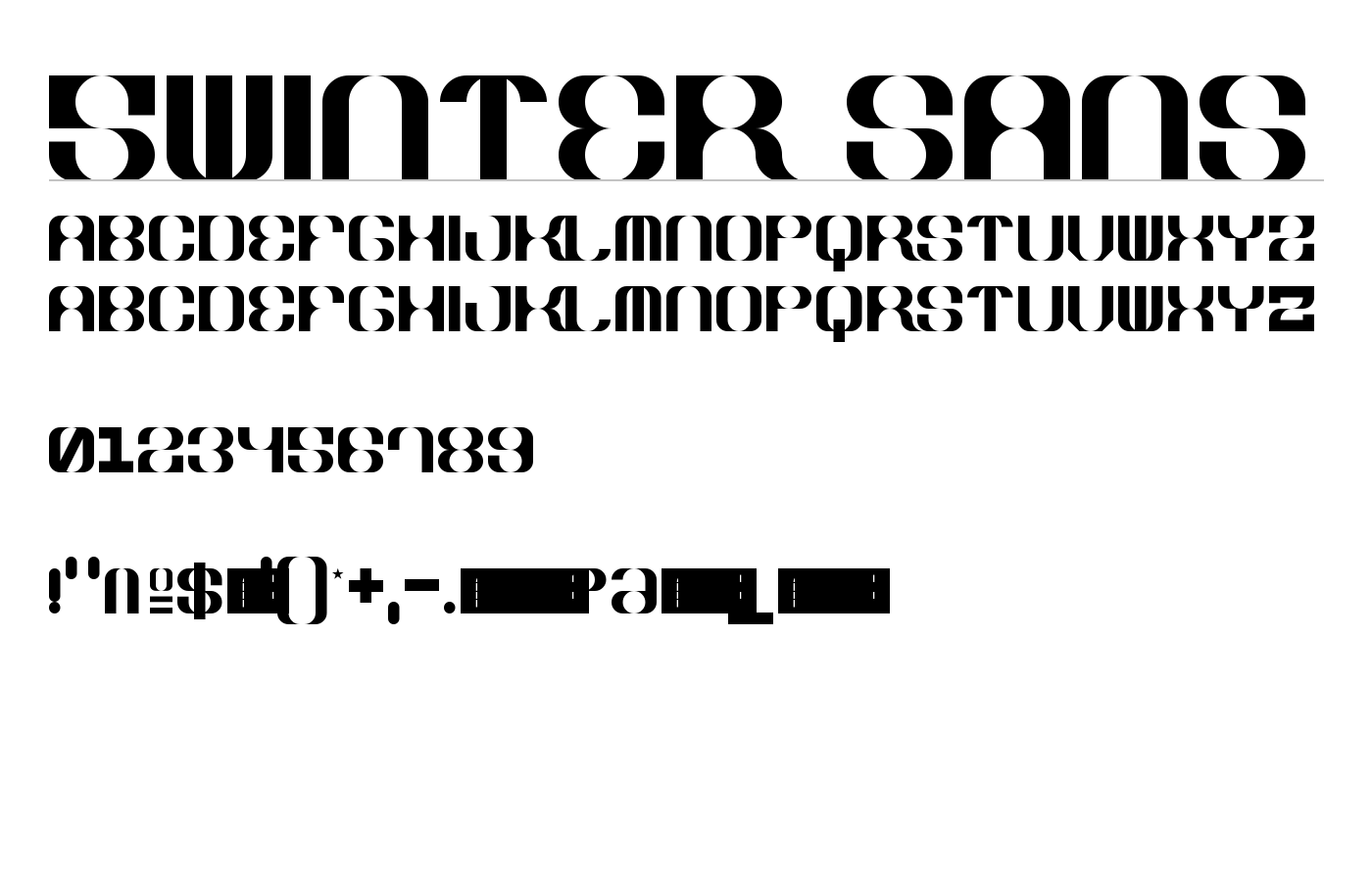
5Winter Sans is a bold, modern display font with a strong geometric structure and high contrast between thick and thin strokes. Its unique, futuristic letterforms feature sharp edges and stylized curves, making it perfect for eye-catching logos, headlines, and creative branding where a contemporary and edgy vibe is desired. This font works best in large sizes where its distinctive design can truly stand out.
5Winter Sans Font
About 5Winter Sans Font
| Font family | 5Winter Sans Font |
| Designer | Noah - 10 year old typomaniac |